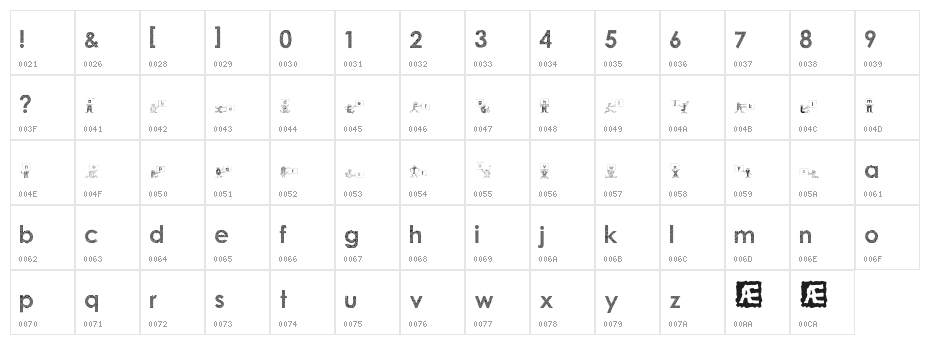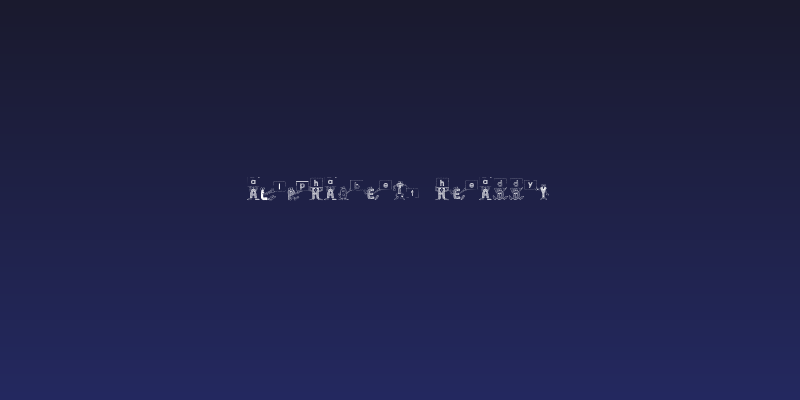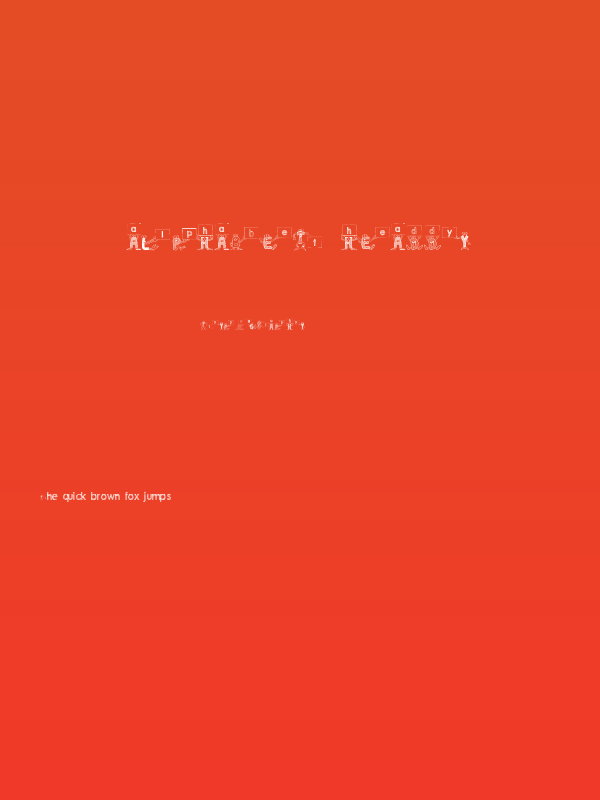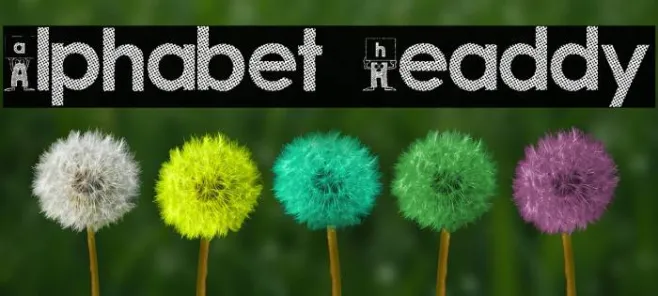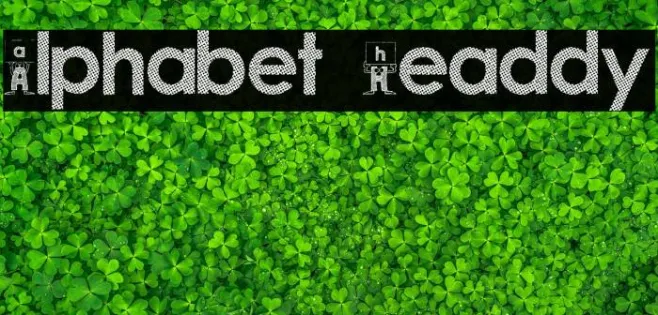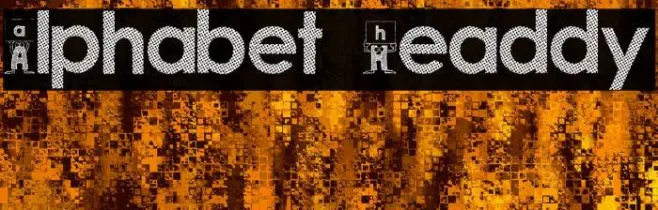
Alphabet Headdy Font
Alphabet Headdy Description
This playful and imaginative font features characters that are creatively integrated into human-like figures, each holding a letter. The design is whimsical and artistic, making it ideal for projects that require a touch of humor and creativity. The lowercase letters are presented in a bold, dotted pattern, providing a textured appearance that adds depth and interest. The numbers follow the same style, ensuring consistency across different uses. The special characters are uniquely styled, with some resembling abstract art forms, enhancing the font's overall playful aesthetic. This font is perfect for children's books, playful branding, or any project that seeks to capture attention with its unique and engaging style.
| Overall Style | Playful, Artistic |
| Proposed Projects | Children's books, playful branding, creative posters, art projects. |